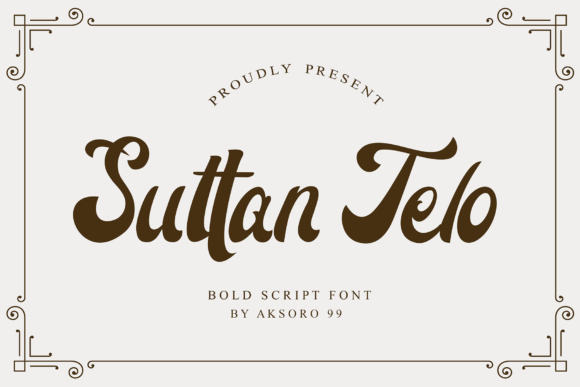
Introducing Suttan Telo Font: A Whimsical Handwritten Delight for Your Creative Projects!
Embark on a typographic adventure with Suttan Telo Font, a captivating script font family that exudes charm and personality. Crafted with meticulous attention to detail, Suttan Telo is an adorable quirky handwritten font that will add an incredibly joyful touch to your designs. Fall head over heels in love with its playful style and immerse yourself in a world of creativity.
Suttan Telo is not just a font; it's an expression of your individuality. With its lively strokes and cheerful vibe, it will transform your designs into works of art. Unleash your imagination and let Suttan Telo take you on an inspiring journey of self-expression.
Whether you're a seasoned designer or just starting out, Suttan Telo is your perfect companion. Its versatility knows no bounds, making it ideal for a wide range of projects. Imagine creating eye-catching social media posts that pop off the screen, designing stunning stationary art that sparks joy, or crafting enchanting logos that leave a lasting impression.
With Suttan Telo as your creative ally, you'll discover endless possibilities. Dive into the world of graphic design, web design, branding, and more, knowing that you have a font that matches your unique style and vision. Let Suttan Telo be the spark that ignites your creativity and sets your designs ablaze with brilliance.
Don't miss out on this opportunity to elevate your designs to new heights. Experience the magic of Suttan Telo Font today and unlock a world of creative possibilities. Its playful spirit and infectious energy will transform your projects into captivating masterpieces that leave a lasting impression. Embrace the joy of Suttan Telo and embark on a creative journey like never before!